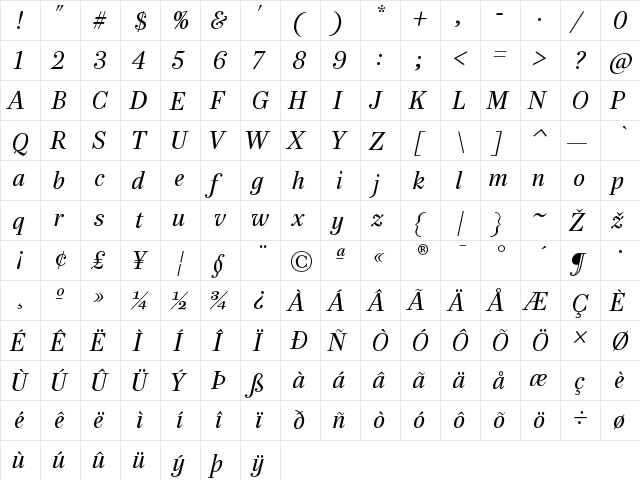
PB48TTP-Italic Regular
Design Context for PB48TTP-Italic Typeface
PB48TTP-Italic is a composed and adaptable typeface that performs quietly and consistently across a wide range of design contexts. The dynamic lean of this cut emphasises speed and emphasis in any layout.